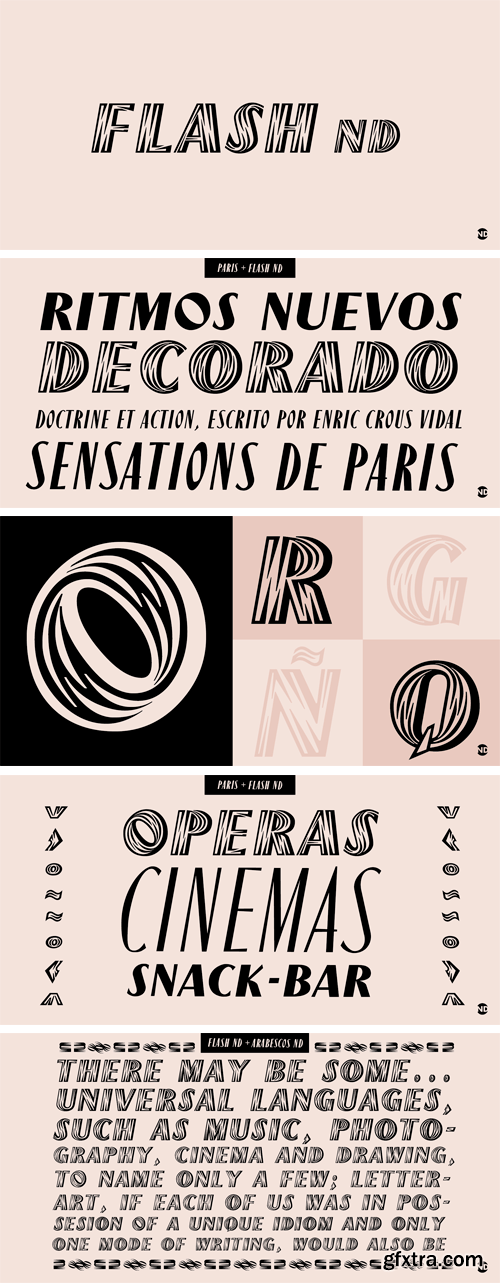
Flash ND is part of Neufville Digital’s GRAFÍA LATINA Collection. A display typeface containing capitals, lining figures and punctuation. It is a typical headline and poster font. The typeface design is based upon the elements ‘light’ and ‘shadow’ producing a powerful contrast with a special harmony, giving an impression of a third dimension.